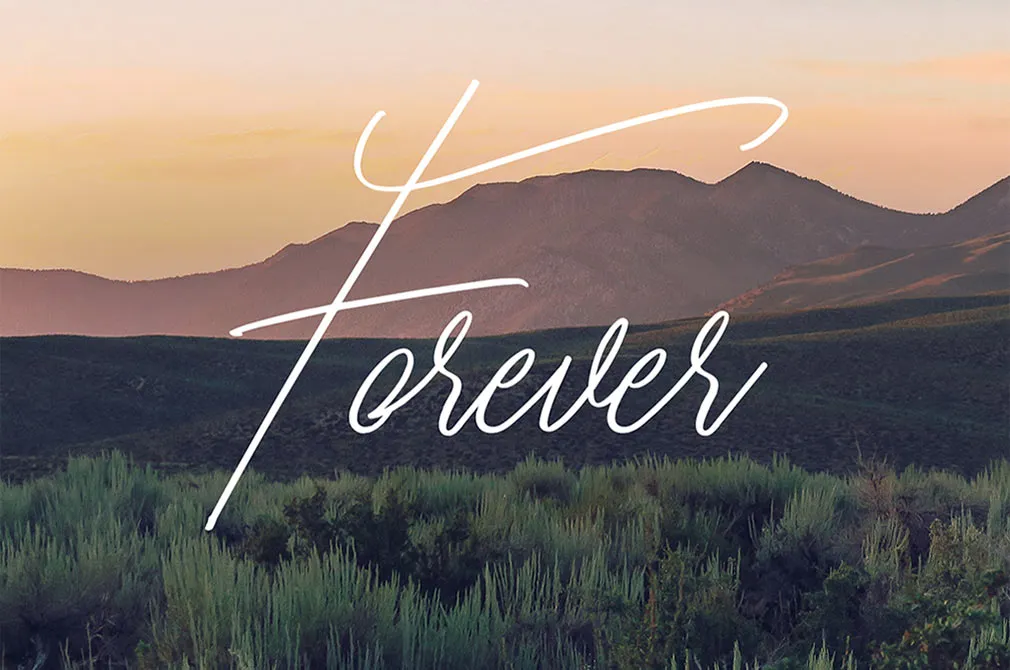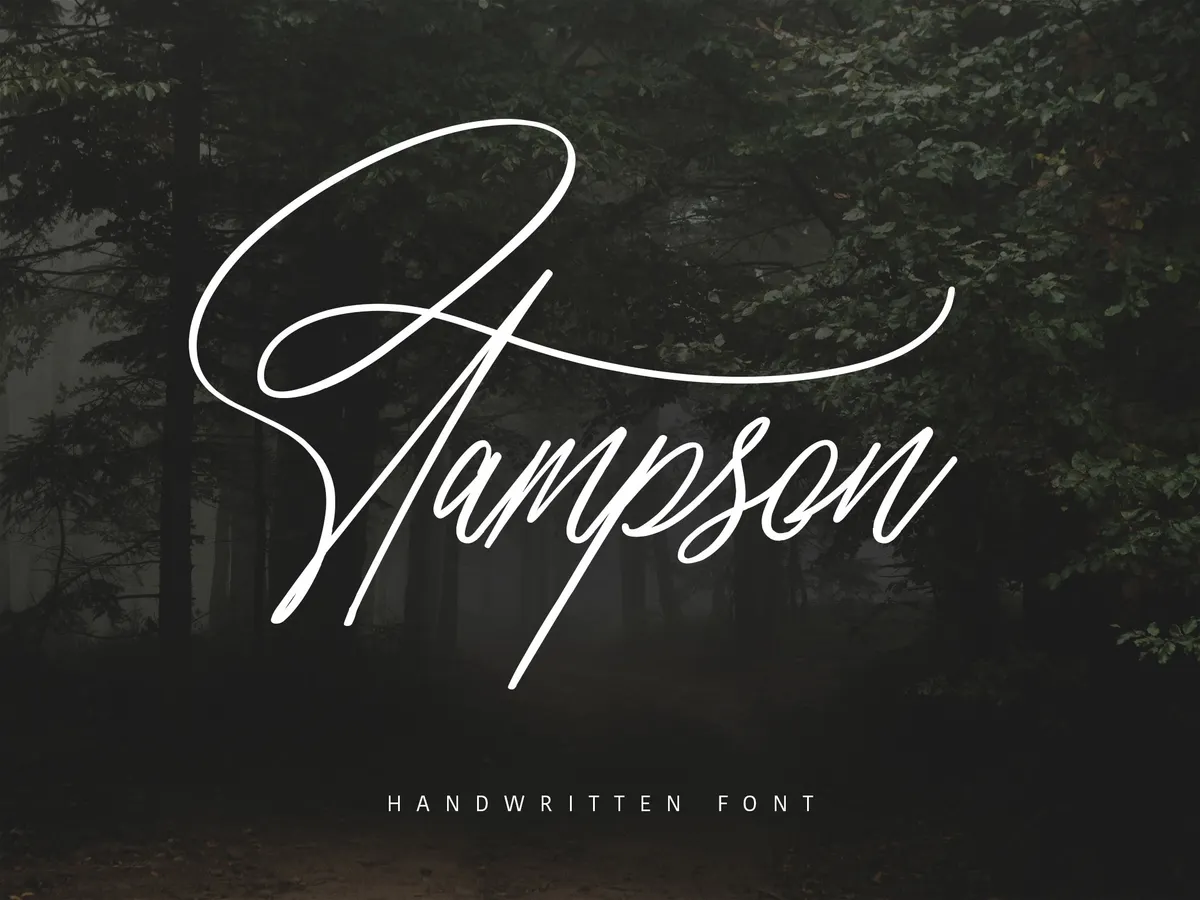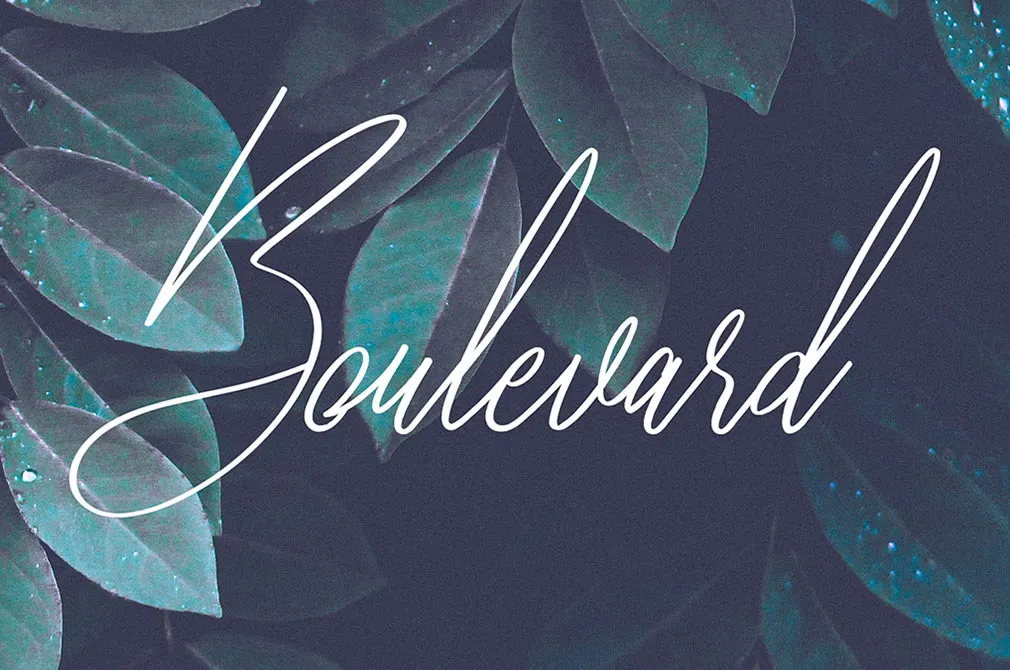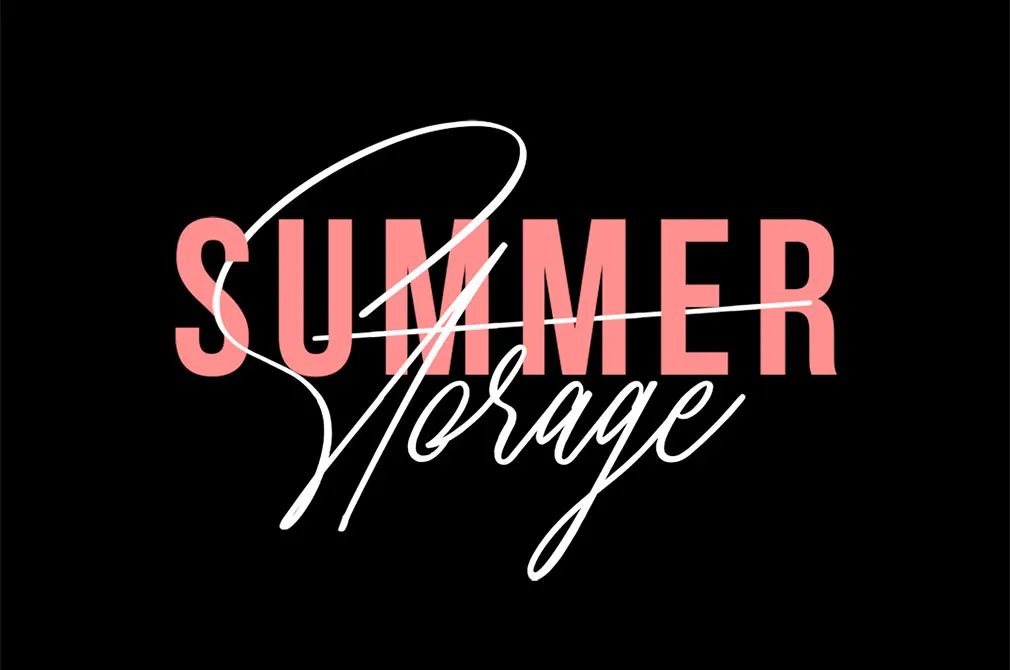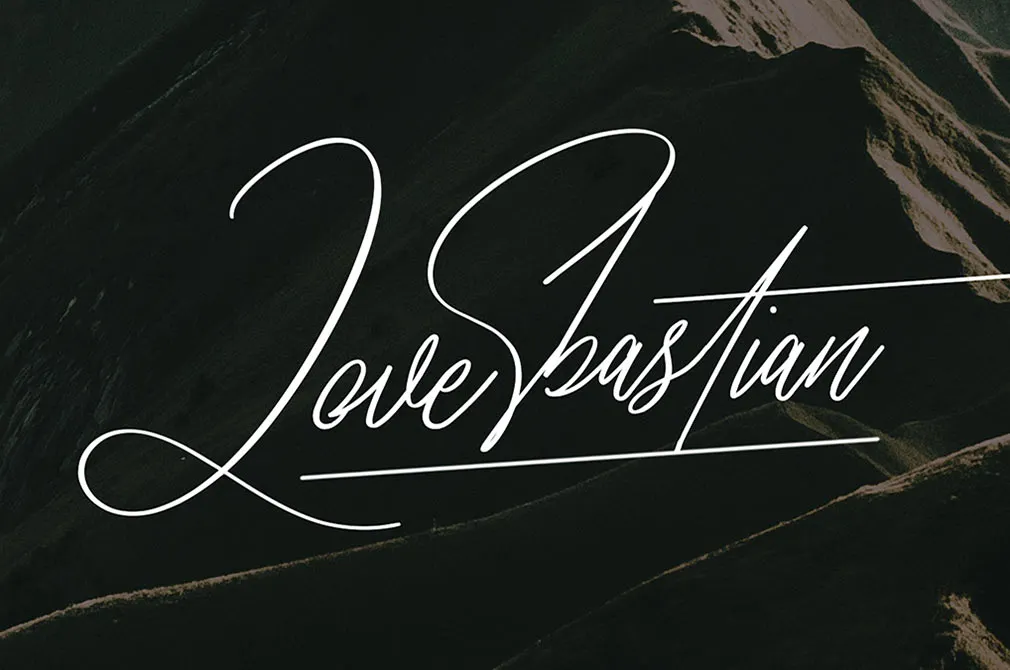
Stampson Signature Font
If your designs lack the touch of realism, the properly selected typeface is ready to save the situation. Light and lively font shares the hand-written aesthetics in every curl.
Let us offer you a gentle script font, bringing the nice feeling of comfort. Bright and clear lines of Stampson Signature were thoroughly written and formed a charming font, absorbed the thin lines of a marker. Let it become a focal point of your ready-made project or put it together with a matching typeface for achieving the better impression. What about the sphere of use? Try this script with stationery, logos, apparel, website designs or branding ideas, which are doomed to become masterpieces.